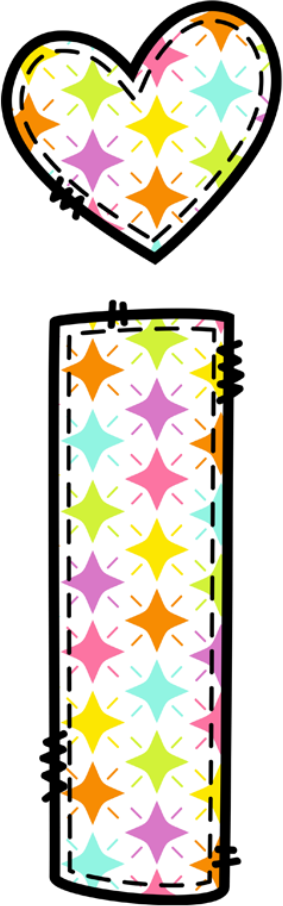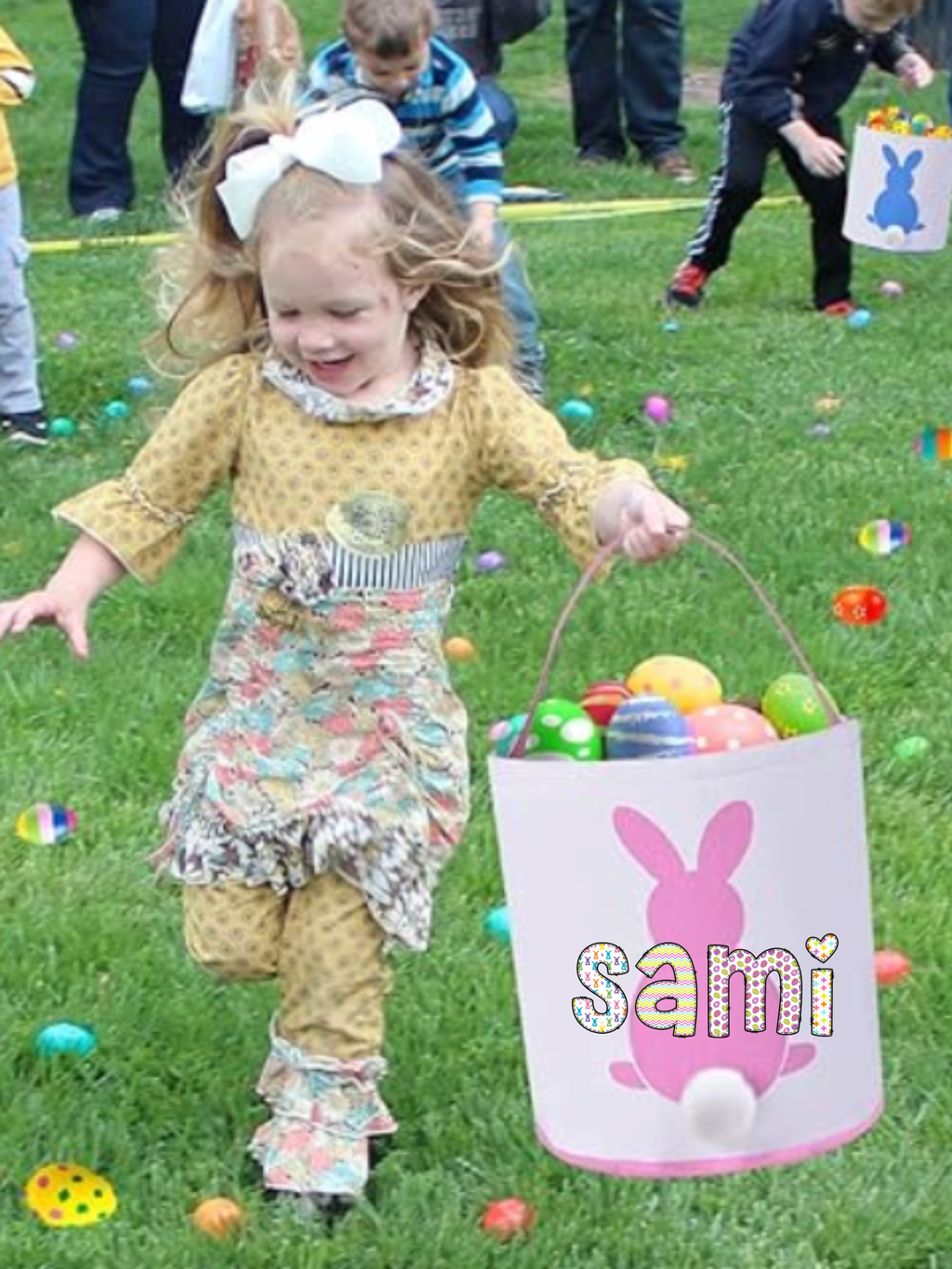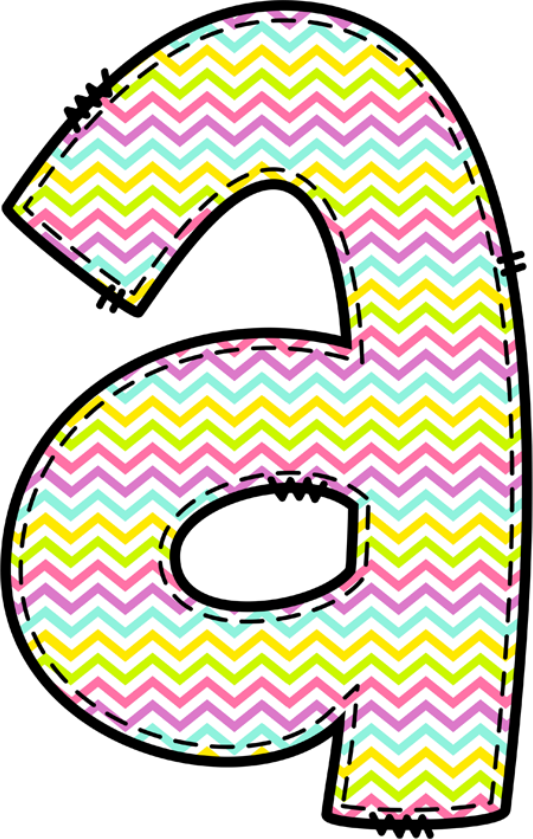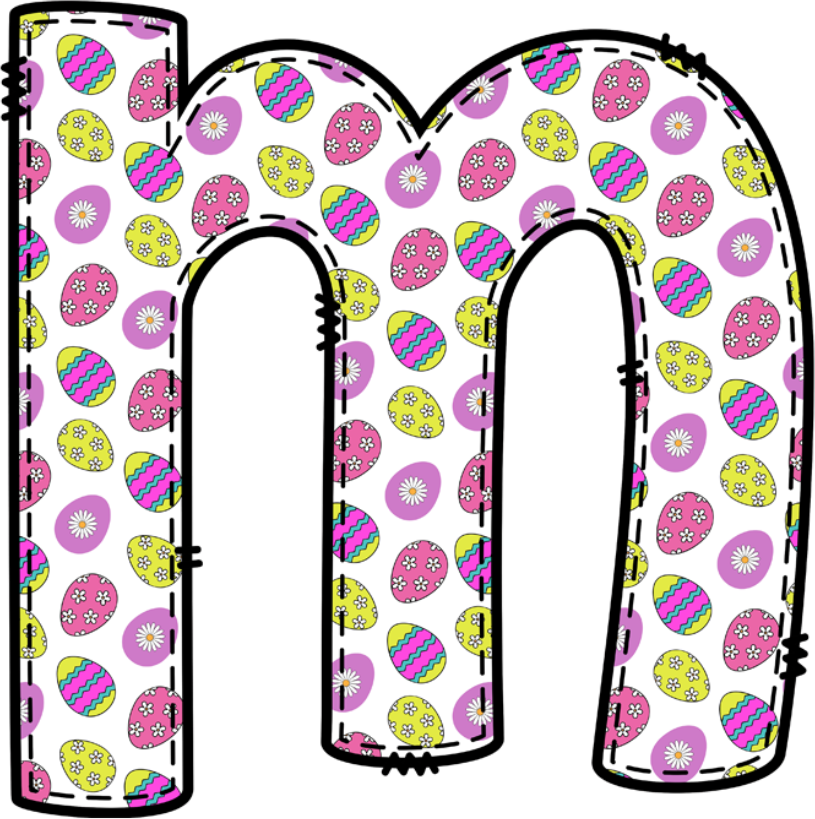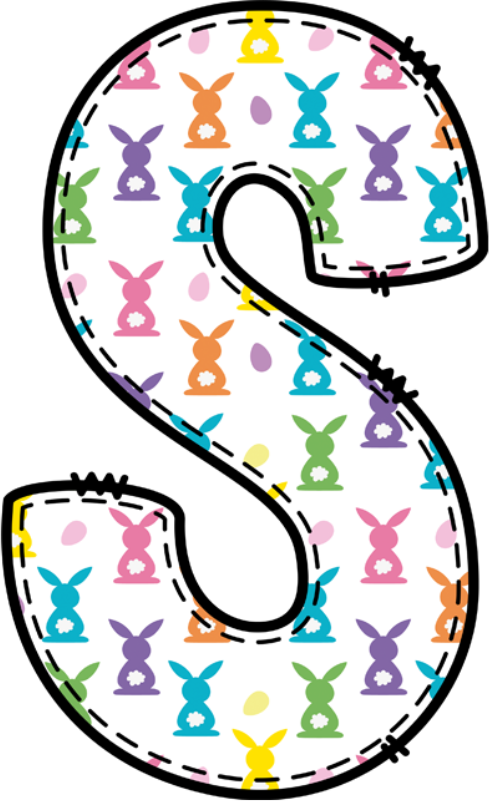
Easter Stitch Outline Letter Font Set (4 Uppercase Font Sets Included)
With this download you will receive four complete lowercase alphabet sets, along with two glyphs. The glyphs will include the letter 'i' as an asterisk and the letter 'j" as an ampersand with the heart on top. Also included is an OTF font for each different pattern which can be installed to type the letters directly in Photoshop.